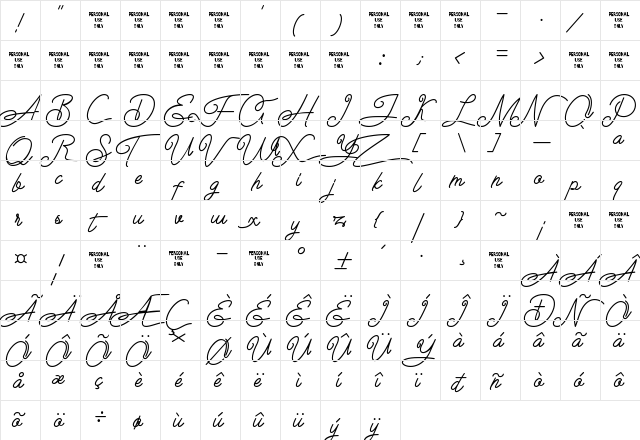
Airlangga Regular
| Designer | Fuad hasan |
Design Context for Airlangga Typeface
Airlangga is a composed and adaptable typeface that performs quietly and consistently across a wide range of design contexts.